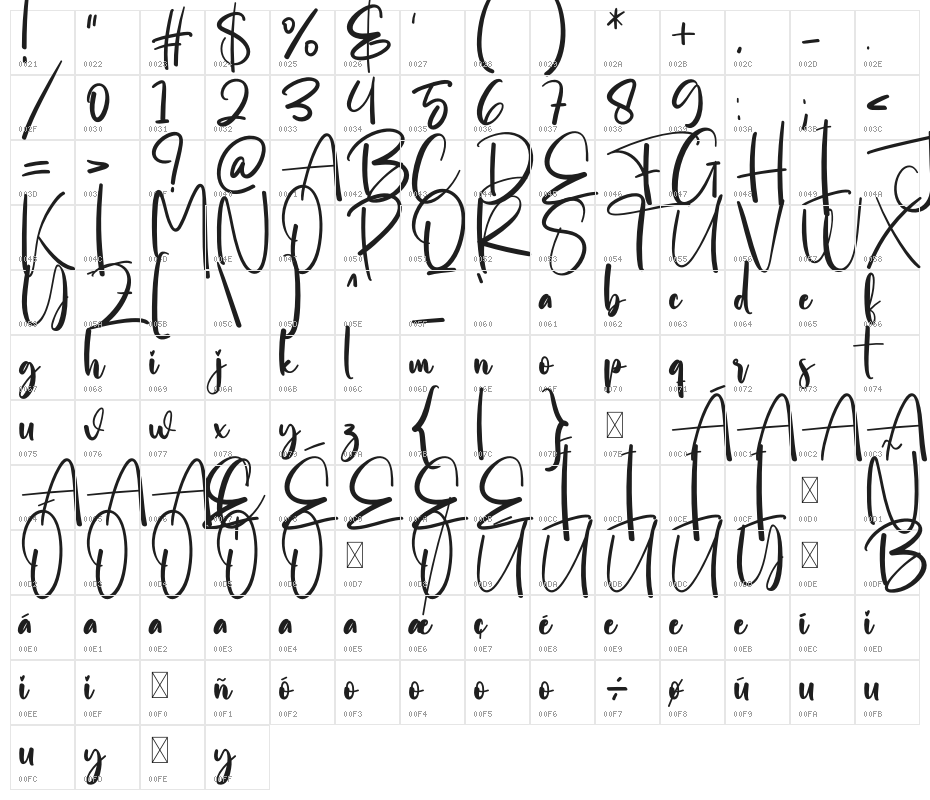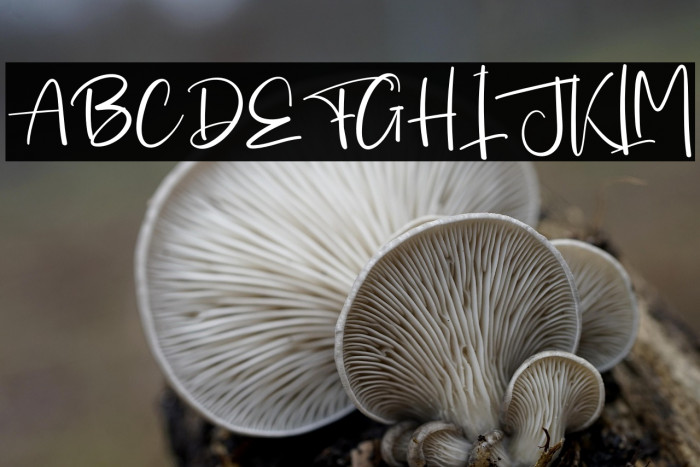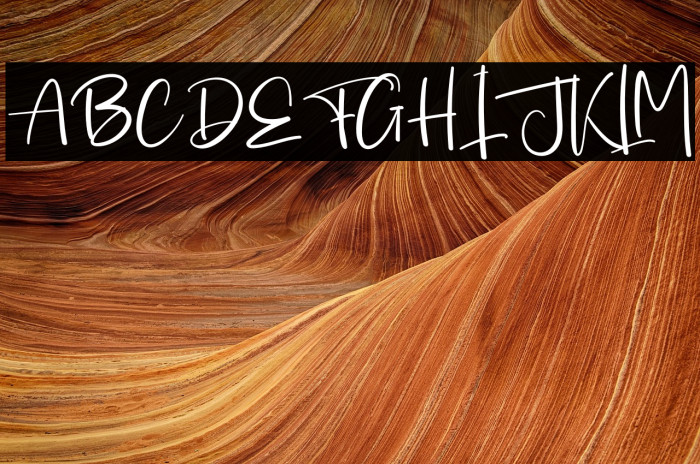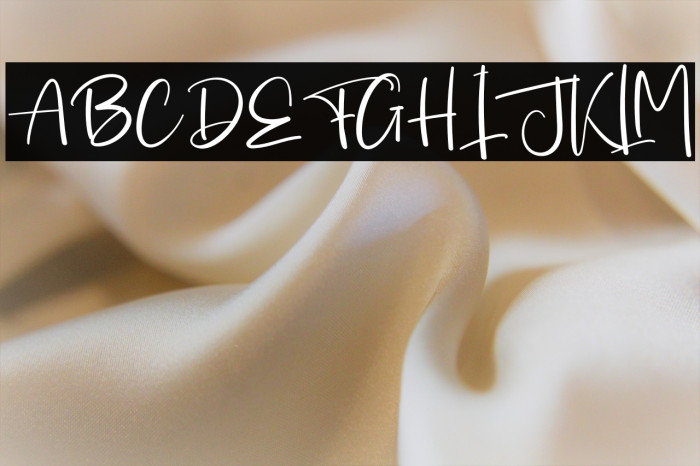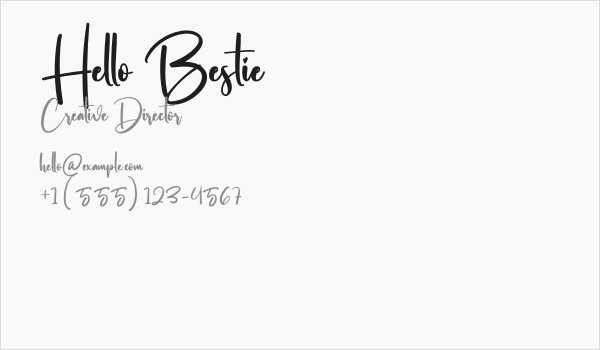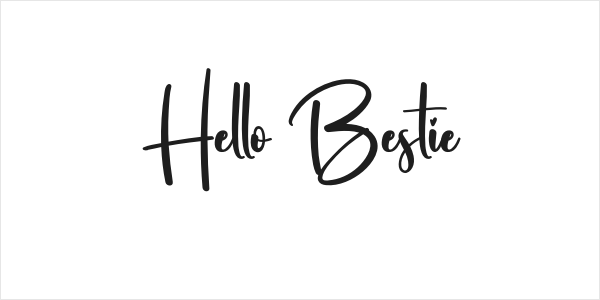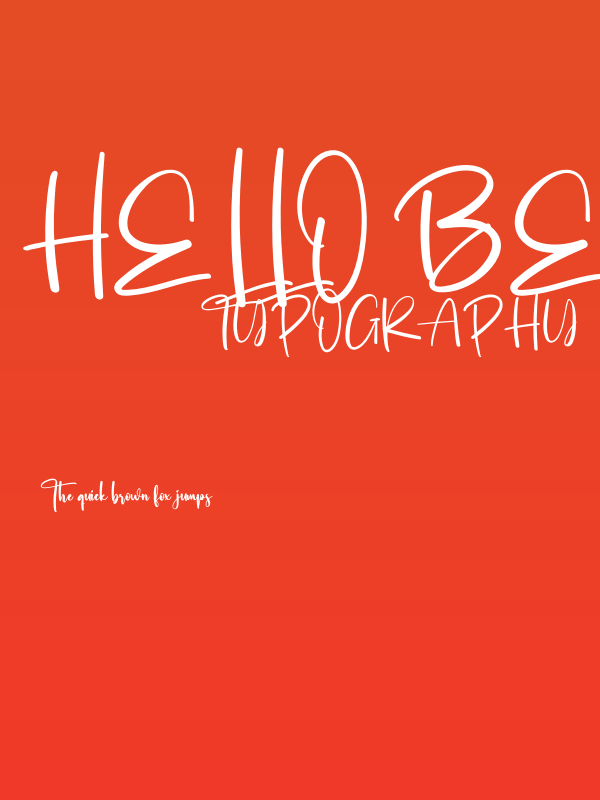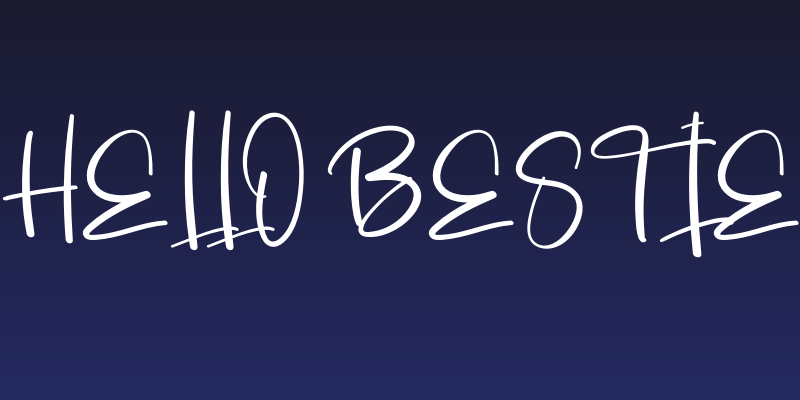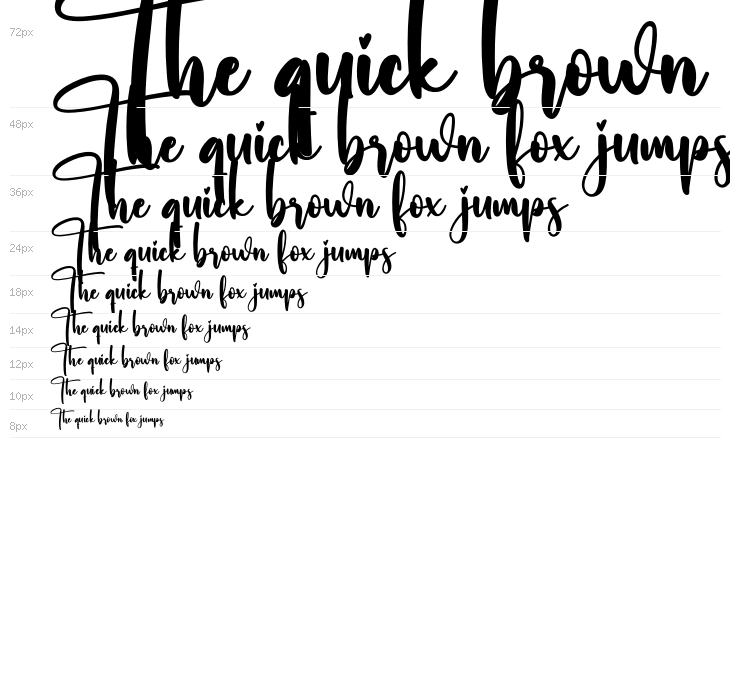
Hello Bestie Font
Hello Bestie Description
This font features a playful and energetic script style, characterized by its flowing, handwritten appearance. The uppercase letters are tall and slender, with a slight slant that adds a dynamic feel. The lowercase letters are more rounded and bold, providing a nice contrast to the uppercase. The numbers and special characters maintain the same lively and informal style, making the font versatile for various creative projects. The overall design is modern and friendly, perfect for adding a personal touch to any text.
| Proposed Projects | Ideal for greeting cards, invitations, social media graphics, and personal branding. |